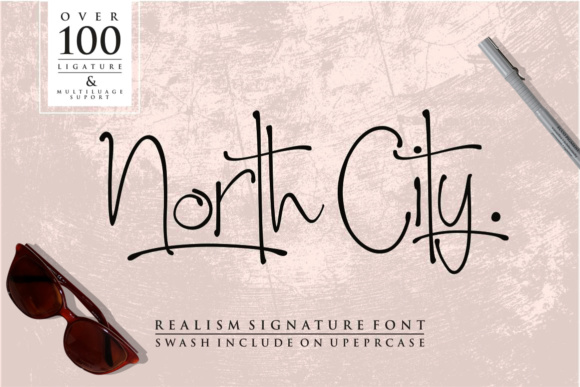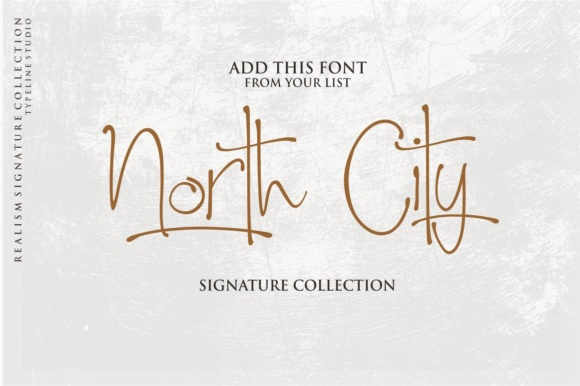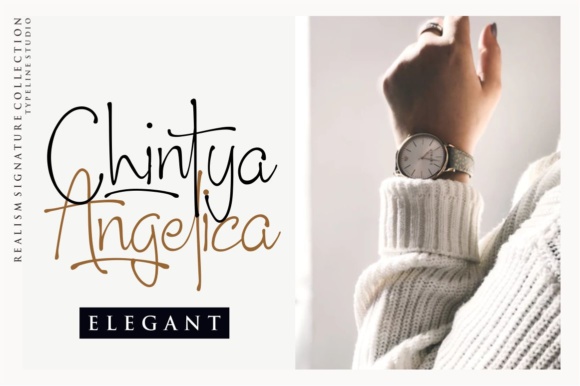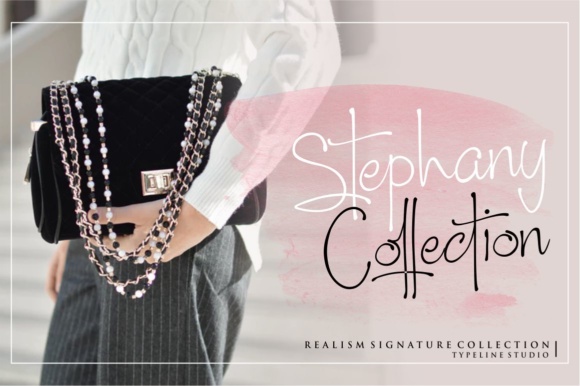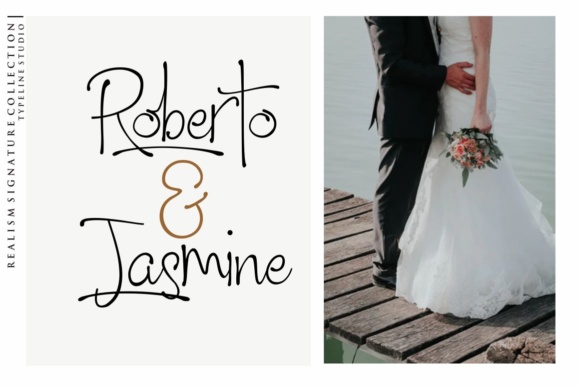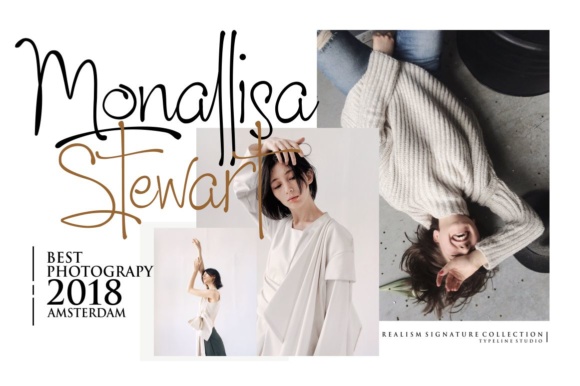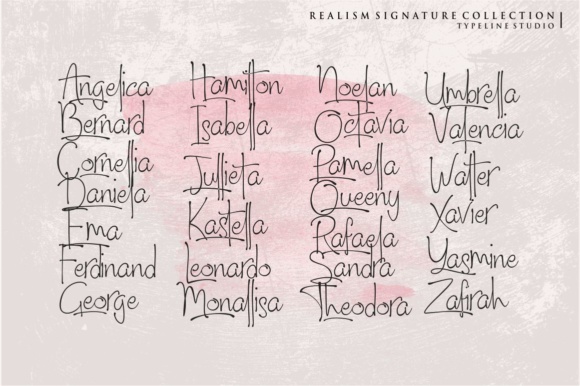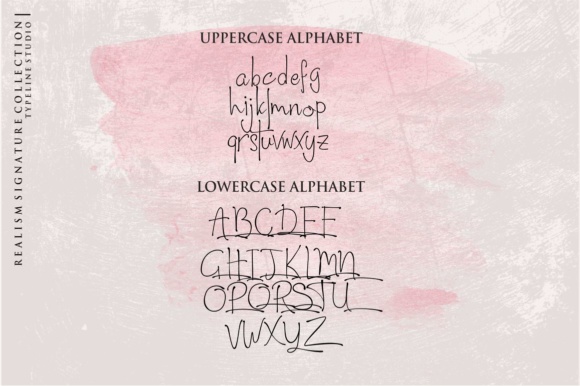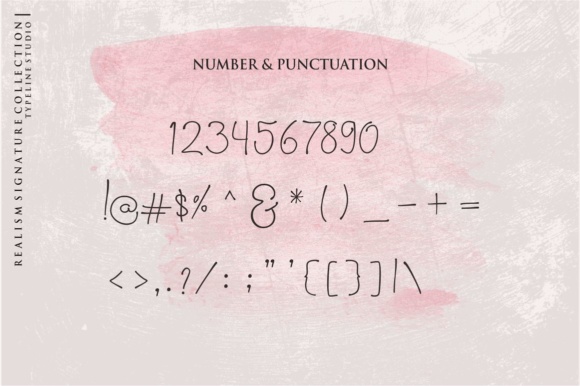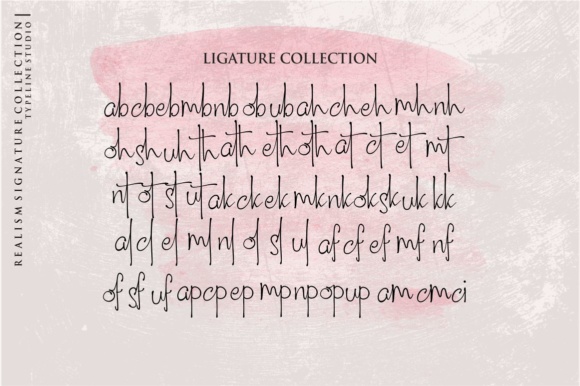
North City Font
About North City Font
As a graphic designer, we are often asked to design logos in Signature style, but with real and natural handwriting nuances. So, this font is a manifestation of this idea.
North City is perfect for branding, you won’t get funny or weird logos with this font. To keep the effects of the real hand letter up to a maximum, it contains lots of beautiful ligatures.